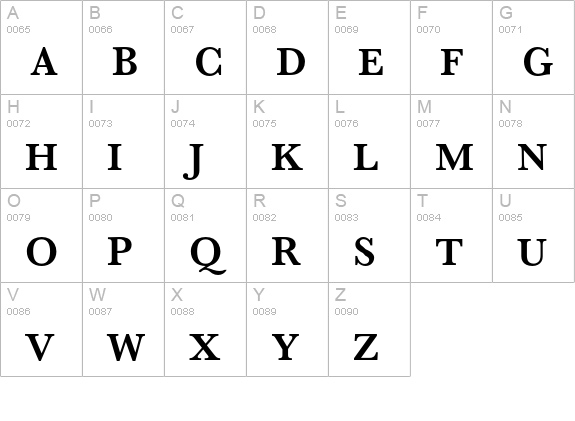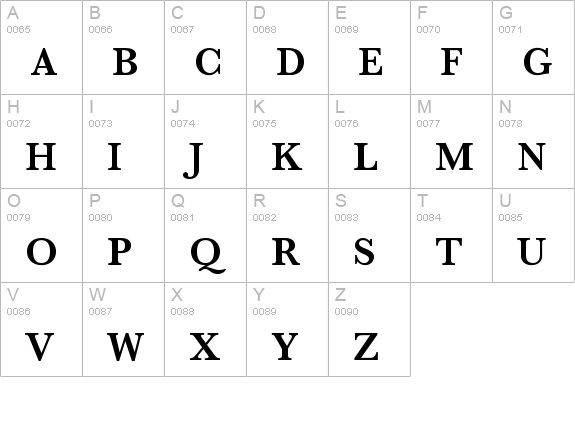
Baskerville Semi Bold is a strong, high-contrast variant in the Baskerville typeface family \xE2\x80\x94 well suited to headlines, attention-grabbing titles, and strong calls-to-action.
Baskerville Semi Bold font exudes a sense of sophistication and elegance with its refined lines and strong presence. This versatile typeface strikes the perfect balance between classic and modern, making it suitable for a wide range of design projects. The bold weight of Baskerville Semi Bold commands attention while maintaining a sense of grace and timeless appeal. And the best part? Baskerville Semi Bold font is freely available to download at FontsMarket.com, allowing designers and creatives to enhance their work with this exquisite typeface without any cost. Whether you're working on branding, editorial design, or any other creative project, Baskerville Semi Bold font is sure to elevate your designs with its distinctive and polished aesthetic.